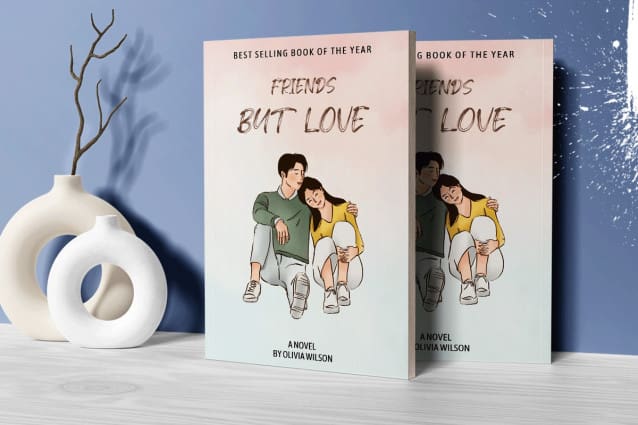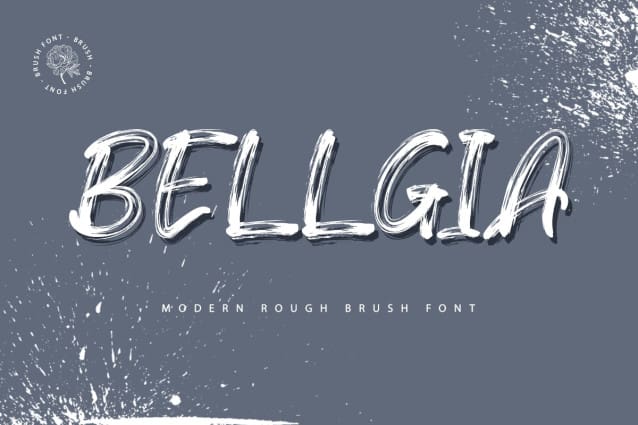
Bellgia Brush Font
Bellgia Brush Font is a non-script brush font that is part of our modern brush font collection. The design of the typeface mimics the appearance of handwriting using your fingertips and wet paint.
The Bellgia Brush Font can be used on wall art, artwork titles, and book covers. In addition to that, this font is also appropriate to be used in formal events, such as rustic-theme wedding invitations, souvenirs, and decorations.